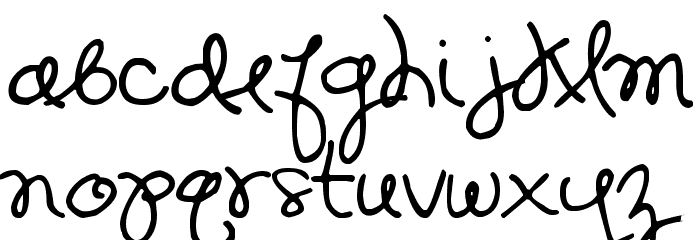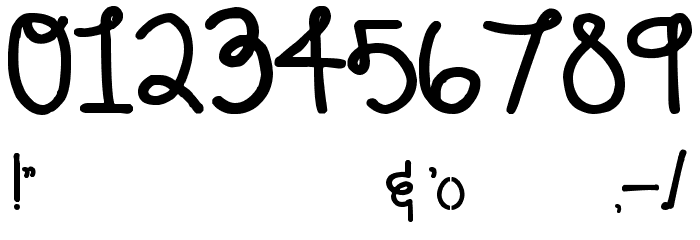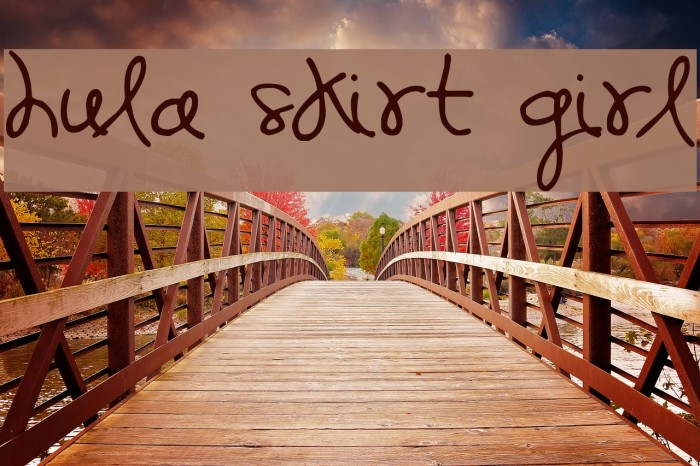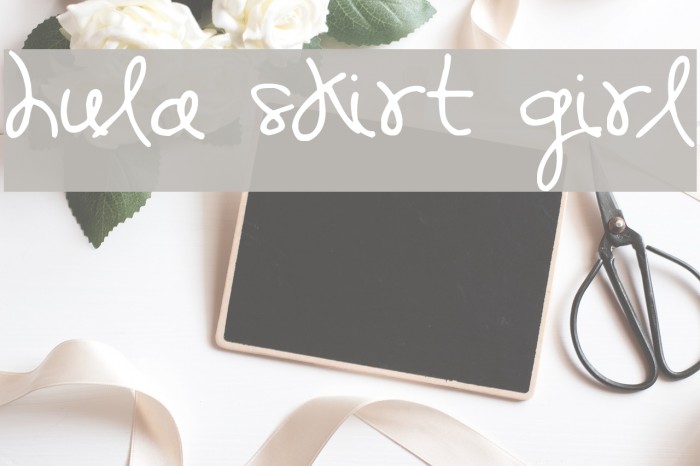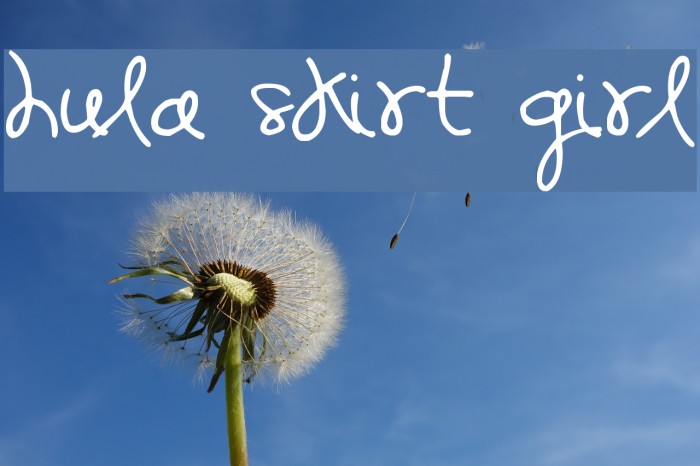
Hula Skirt Girl Font
This font exhibits a playful and whimsical handwritten style, characterized by its fluid and dynamic strokes. The letters are crafted with a natural, flowing motion that mimics the spontaneity of casual handwriting. Each character is unique, with varying stroke widths that add to its lively and informal appearance. The font maintains a consistent baseline, yet the heights of the letters vary, contributing to its charmingly irregular look. The numerals are bold and rounded, complementing the overall aesthetic. Special characters are creatively integrated, enhancing the font's versatility for various design projects.
A playful, handwritten font with dynamic strokes and a whimsical style.
- Proposed Projects: Ideal for greeting cards, children's books, playful branding, and creative social media graphics.
- Use Case: Headlines, Logos, Creative projects